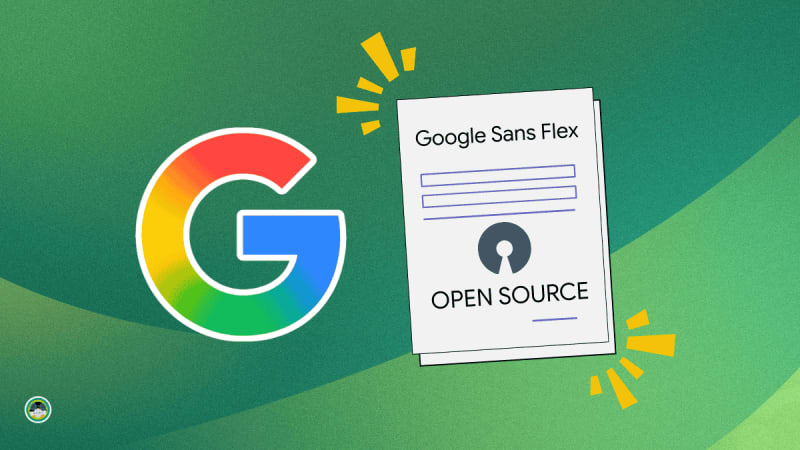
Google Just Made Its Sleek New Font Open Source
Google released Sans Flex, an open source variable font under the SIL Open Font License. The font features five customizable axes (weight, width, optical size, slant, and rounded terminals) in a single file, designed for modern screens and high-resolution displays. It's available for download and can be installed on Linux distributions, though variable font features won't work system-wide in Linux desktop environments.